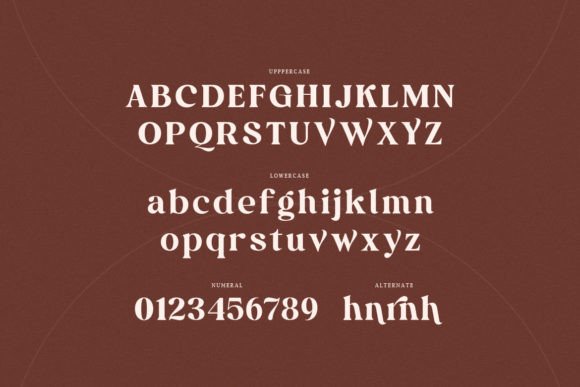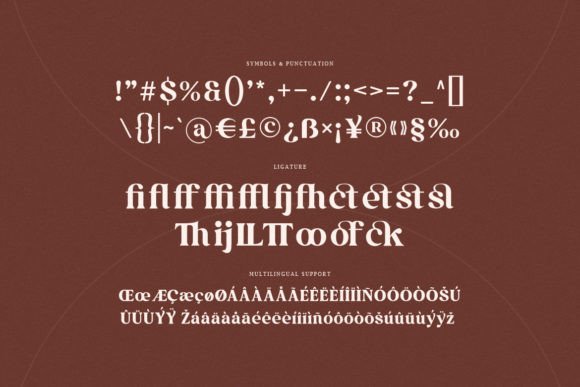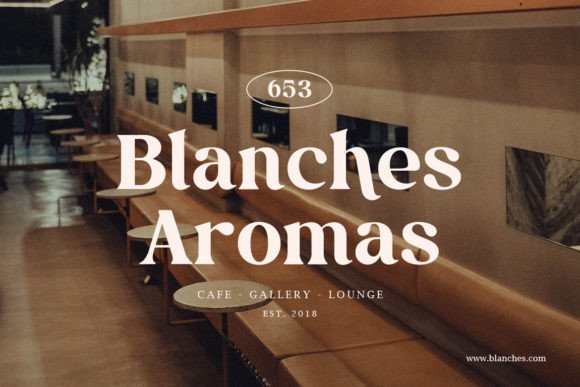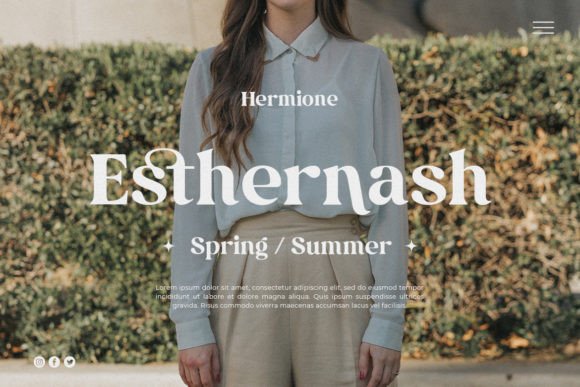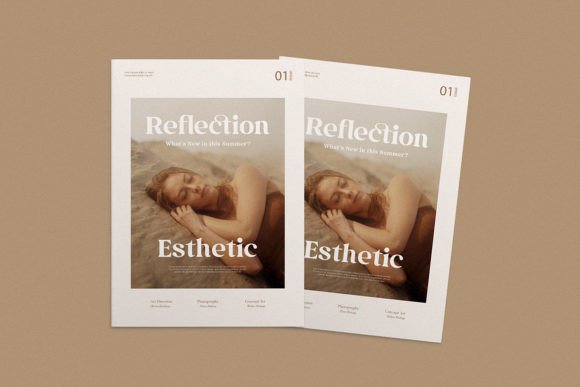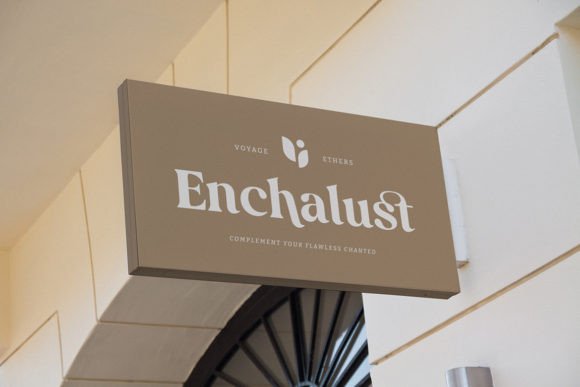
Introducing Elmond Font: Elevate Your Designs with Bold and Stylish Serif Typography
Are you tired of using the same old fonts in your designs? Look no further than Elmond, a bold and stylish serif font that’s sure to take your creations to the next level. With its unique blend of classic elegance and modern flair, Elmond is the perfect choice for designers and crafters looking to add a touch of sophistication to their work.
The Characteristics of Elmond Font
So, what makes Elmond font so special? For starters, its bold and stylish serif design gives it a distinctive look that’s sure to grab attention. The font’s serifs are carefully crafted to add a touch of elegance and refinement to your designs, while its bold weight ensures that your text stands out from the crowd.
But Elmond is more than just a pretty face. Its versatility and legibility make it perfect for use in a wide range of design applications, from headings and titles to body text and more. Whether you’re designing a logo, brochure, or website, Elmond font is sure to deliver.
Why Choose Elmond Font?
So, why should you choose Elmond font for your next design project? Here are just a few reasons:
- Unique and eye-catching design: Elmond font’s bold and stylish serif design is sure to grab attention and set your designs apart from the crowd.
- Versatile and legible: Elmond font is perfect for use in a wide range of design applications, from headings and titles to body text and more.
- Elegant and refined: Elmond font’s serifs add a touch of elegance and refinement to your designs, making it perfect for projects that require a sophisticated look.
How to Use Elmond Font in Your Designs
Using Elmond font in your designs is easy. Here are a few tips to get you started:
- Pair it with a sans-serif font: Pairing Elmond font with a sans-serif font can create a beautiful contrast that adds visual interest to your designs.
- Use it for headings and titles: Elmond font’s bold weight and stylish design make it perfect for use in headings and titles.
- Experiment with different colors and textures: Elmond font looks great in a variety of colors and textures, so don’t be afraid to experiment and find the look that works best for your design.
In conclusion, Elmond font is a bold and stylish serif font that’s sure to elevate your designs to the next level. With its unique blend of classic elegance and modern flair, Elmond is the perfect choice for designers and crafters looking to add a touch of sophistication to their work. So why wait? Add Elmond font to your favorite creations today and let yourself be amazed by the outcome generated.
Whether you’re a seasoned designer or just starting out, Elmond font is a great addition to any design toolkit. Its versatility, legibility, and stylish design make it perfect for use in a wide range of design applications, from print and digital media to web design and more.